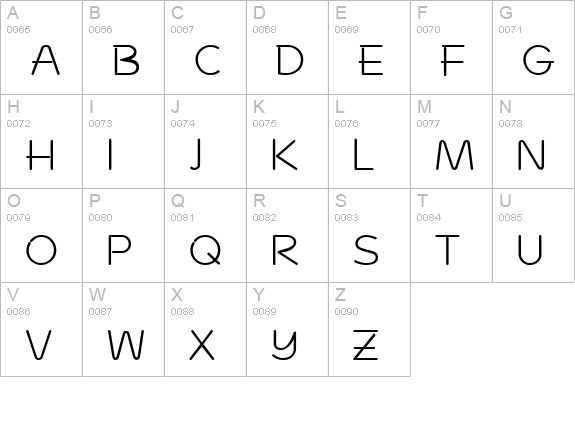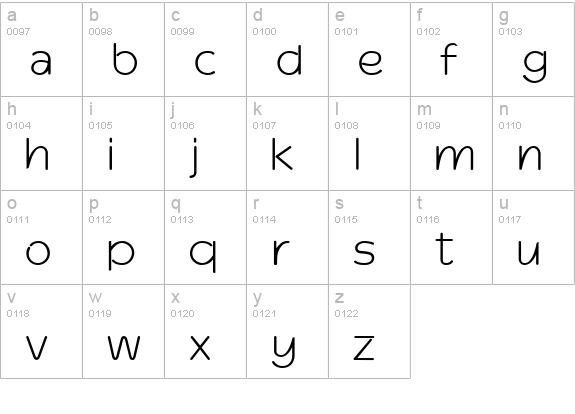
Dinko SSi Font Details
The Dinko SSi font is a modern and stylish typeface that exudes elegance and sophistication. Its sleek lines and sharp edges make it perfect for a wide range of design projects, from branding to editorial layouts. This versatile font is sure to make your text stand out and leave a lasting impression on your audience. What's even better is that the Dinko SSi font is available for free download at FontsMarket.com. That's right, you can get your hands on this amazing font without having to spend a dime. So why wait? Download the Dinko SSi font today and take your designs to the next level with its unique and eye-catching style.